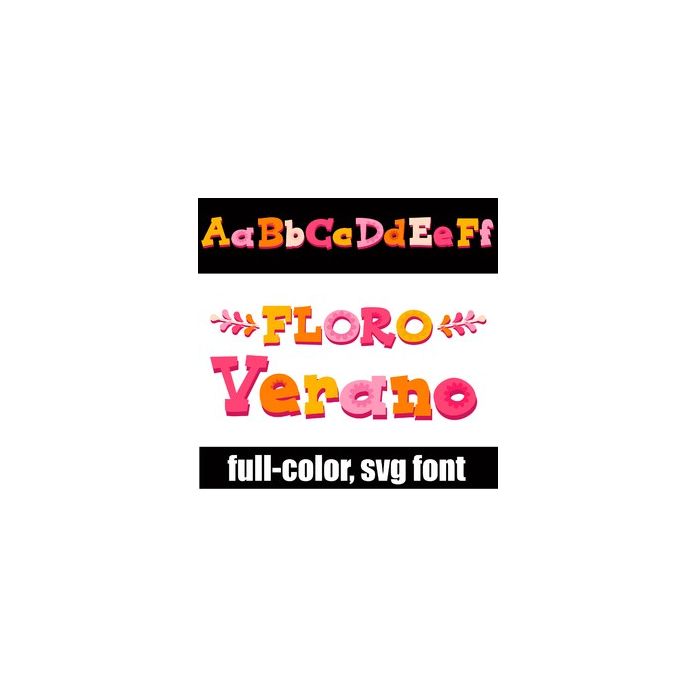
This full-color font features whimsical serif lettering in a hot summer color palette. There is an alt case w/ additional rainbow colors you can access through your system or Silhouette's glyph map.